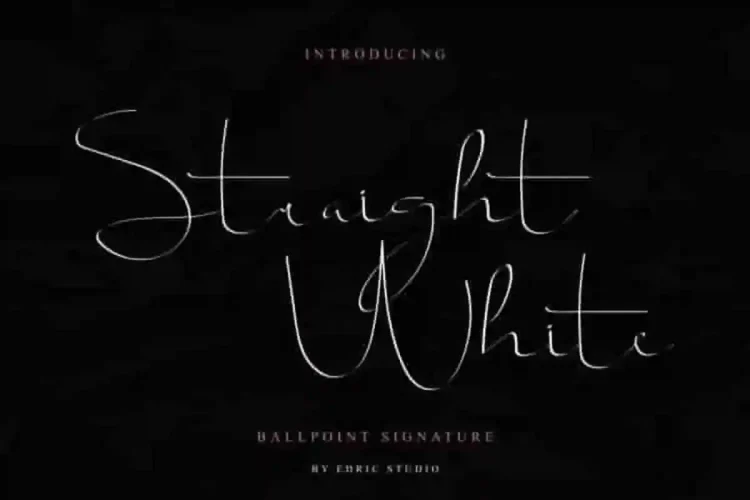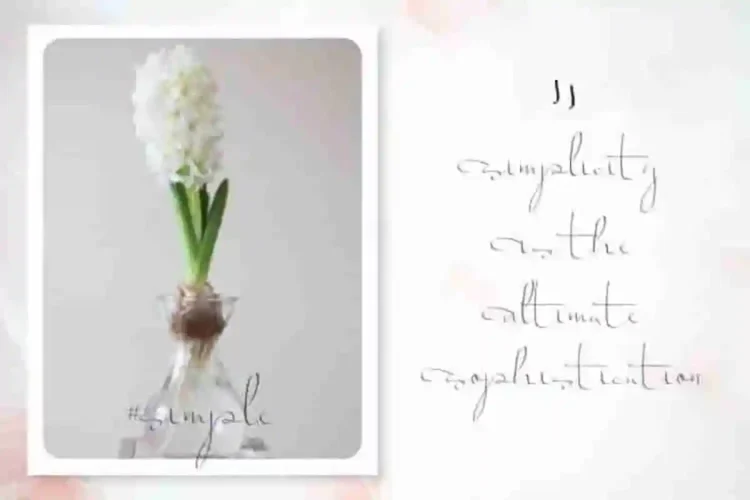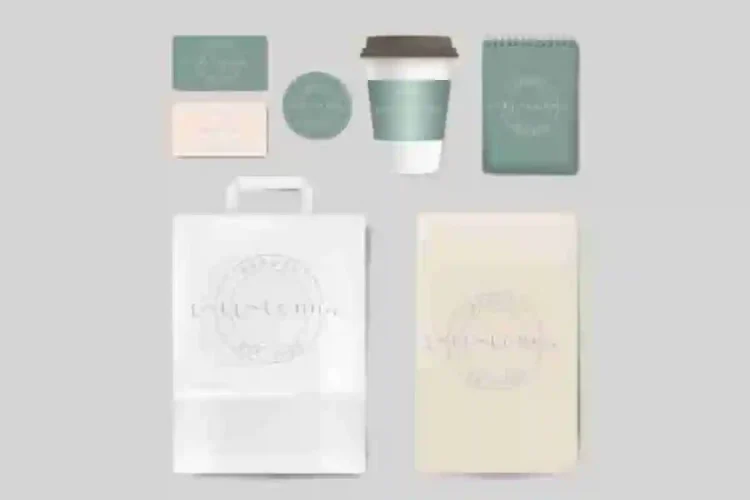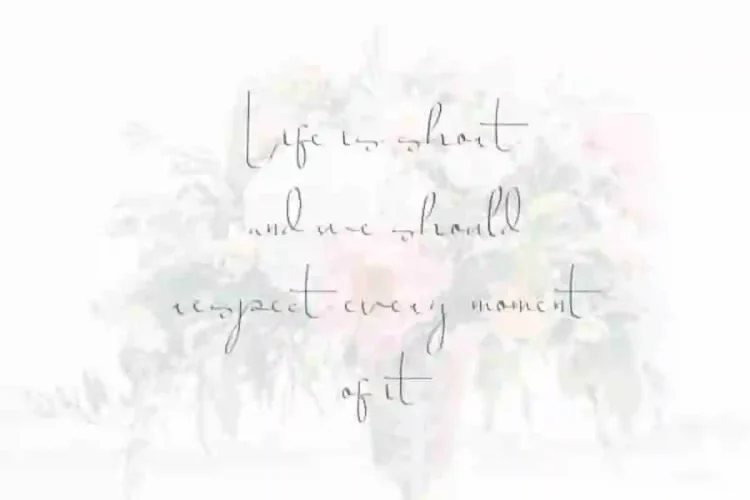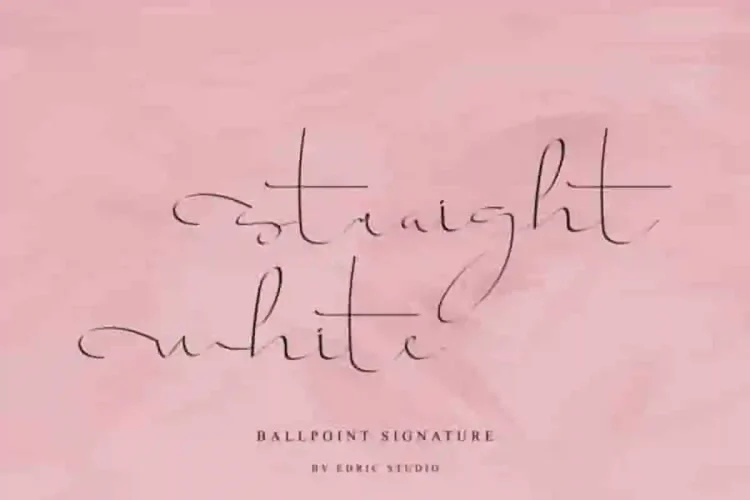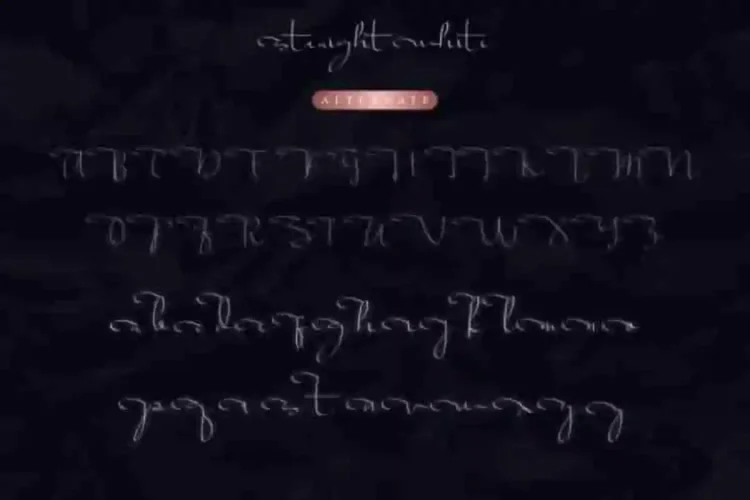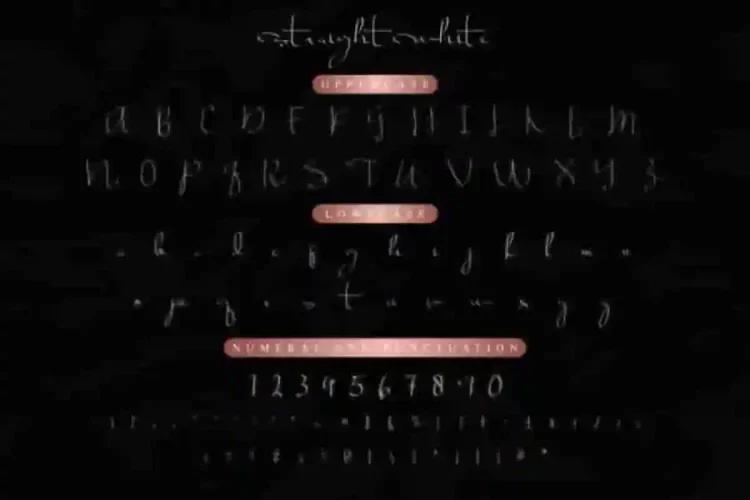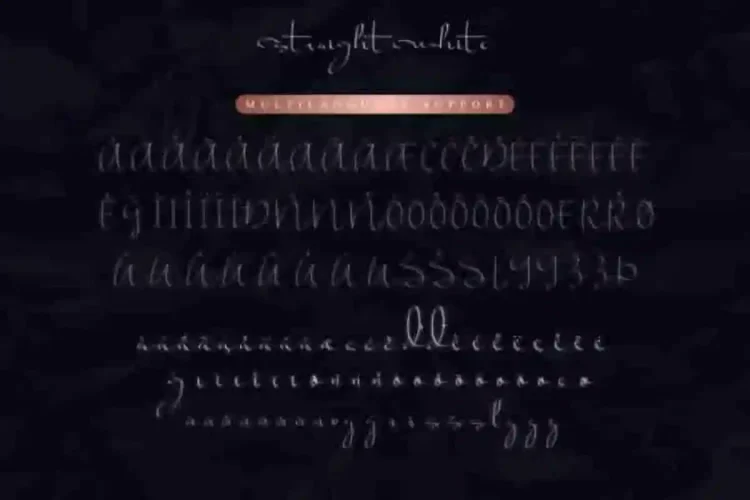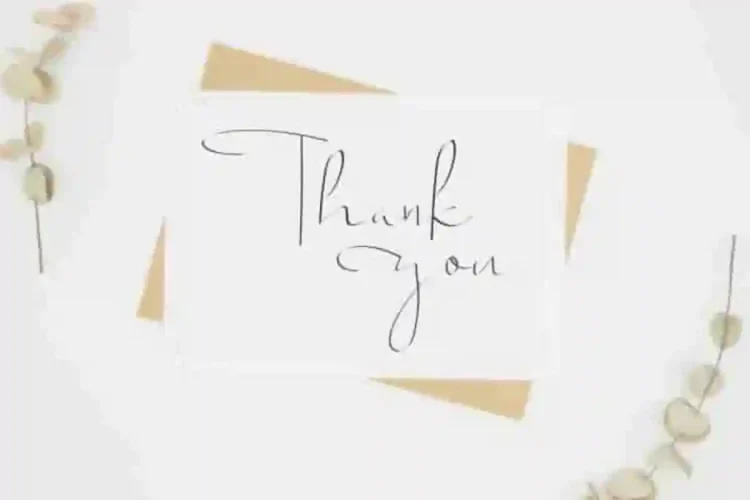
Straight white Calligraphy Font
Introducing our new font : Straight White Calligraphy Font
This font was handcrafted with love in Bandung and Garut – Indonesia. The artists of this font are : Yasri and Suci. This is a script font with calligraphy styling glyps.
Straight white Calligraphy Font comes with many international languages characters glyphs.  This font will suits many projects categories : (with extended license) Logo type, flyer, stationery, business card, signage, flyer, brochure etc.  With your creativity, there’s no limit using with this font.
Straight white Calligraphy Font has an exclusive glyphs with some alternates glyps that you will never get anywhere else. This font will Work on PC & Mac with Simple installations. Accessible in the Adobe Illustrator, Adobe Photoshop, Adobe InDesign, even work on Microsoft Word.